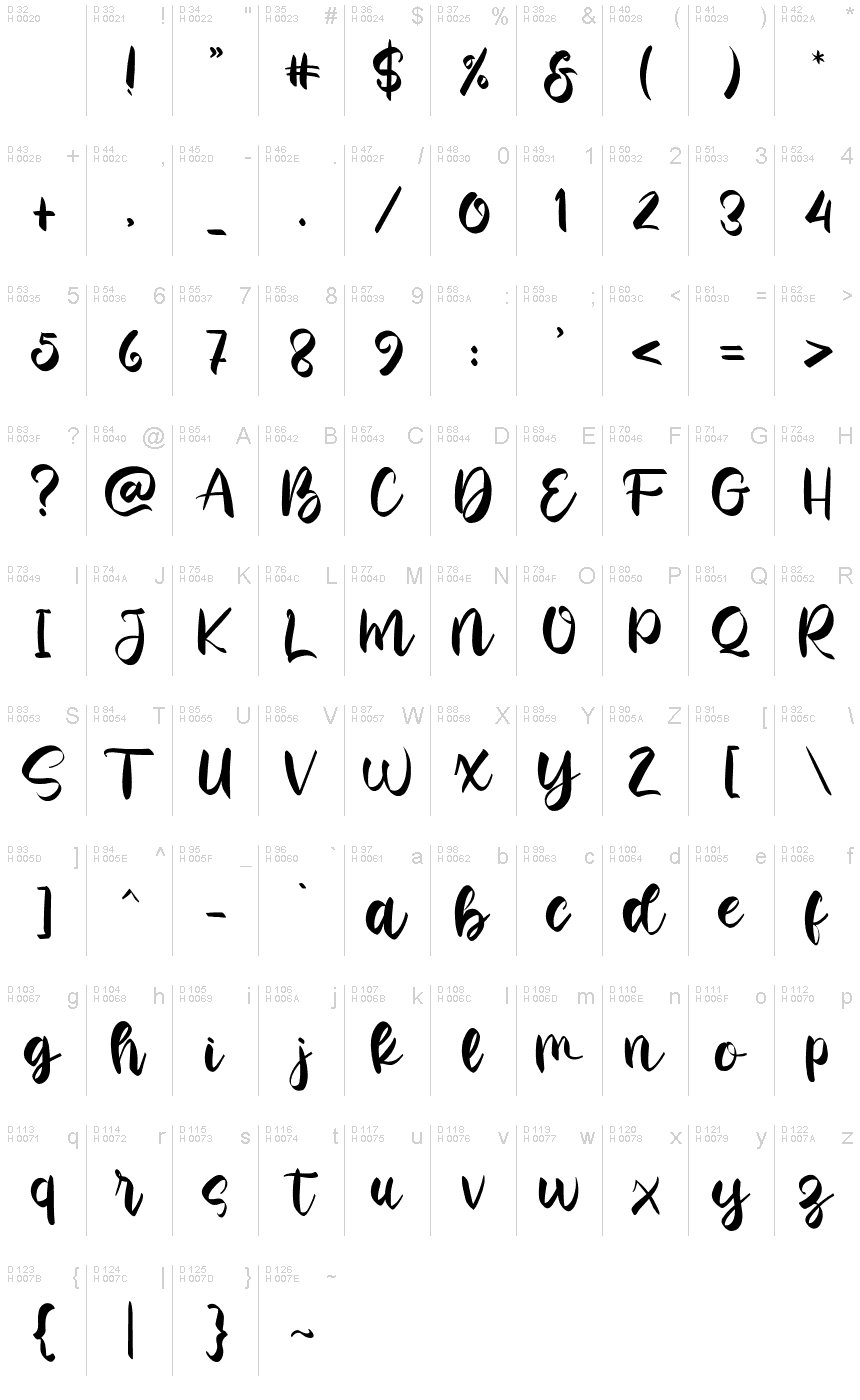
Stephany Folker
Stephany Folker, a delightful creation by Typesme Studio, is a charming handwritten font exuding elegance and grace. With its flowing strokes and playful curves, this font captures the essence of creativity and personal expression.
Its versatility makes it perfect for a multitude of projects such as wedding invitations, greeting cards, branding materials, and blog headers. The semi-bold weight adds a touch of sophistication to any design while the moderate width ensures readability in both print and digital platforms.
Stephany Folker is your go-to choice for adding an enchanting touch to your visual storytelling endeavors.